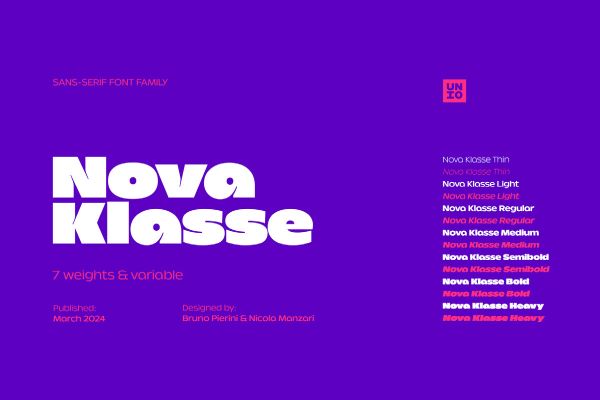
Nova Klasse Font
Nova Klasse by Unio Designs is a modern geometric font that fuses circular and rectangular letterform logic with organic drawing and unconventional detailing to create something that feels both systematic and distinctly alive. Its 2-axis variable font engine offers a seamless weight range from Thin to Extrabold, while seven static weights with matching obliques, multilingual support, ink traps for clean print reproduction, and a full suite of OpenType features make it genuinely versatile across branding, editorial, UI, and web applications. A freebie version is available free for personal and commercial use.